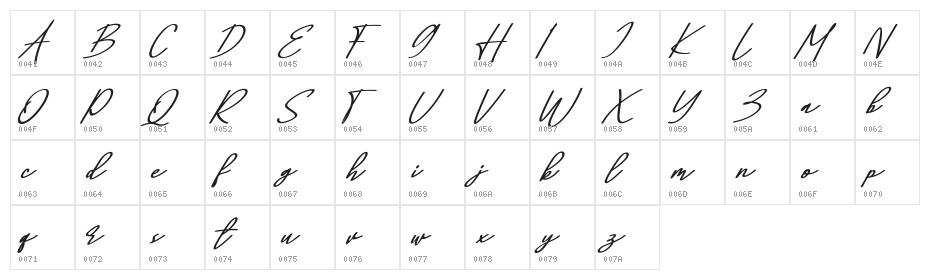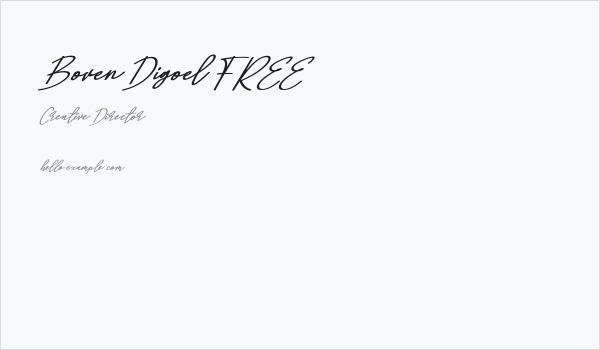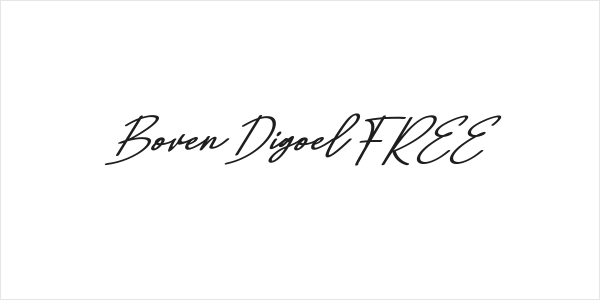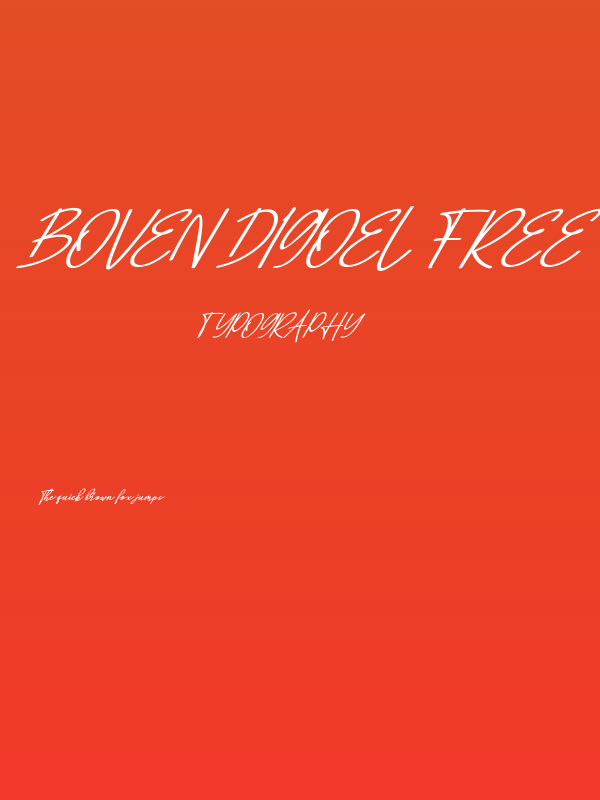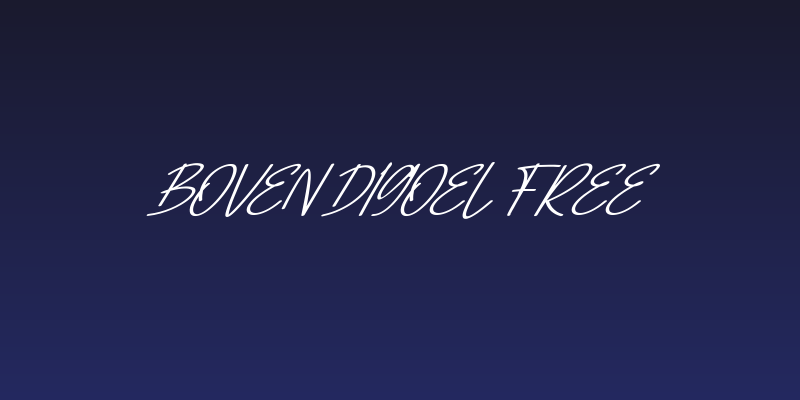
Boven Digoel FREE Font
Boven Digoel FREE Description
A dynamic, cursive script font with a handwritten appearance, featuring fluid, connected strokes and varying thickness. The uppercase and lowercase letters are slanted, with expressive loops and flourishes, giving a personal and energetic feel.
| Overall Style | Handwritten, Decorative |
| Use Case | Logos, Headlines, Invitations, Artistic projects |
| Proposed Projects | Invitations, greeting cards, branding, personal signatures, artistic posters. |